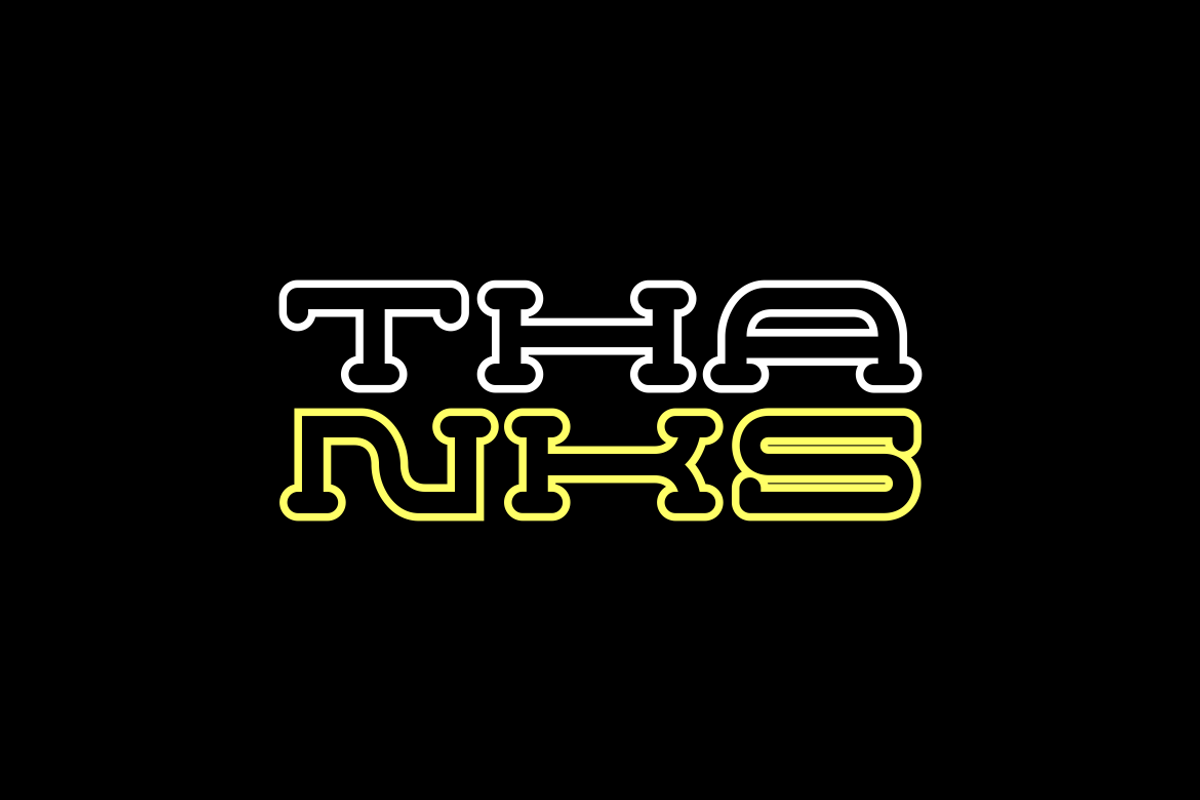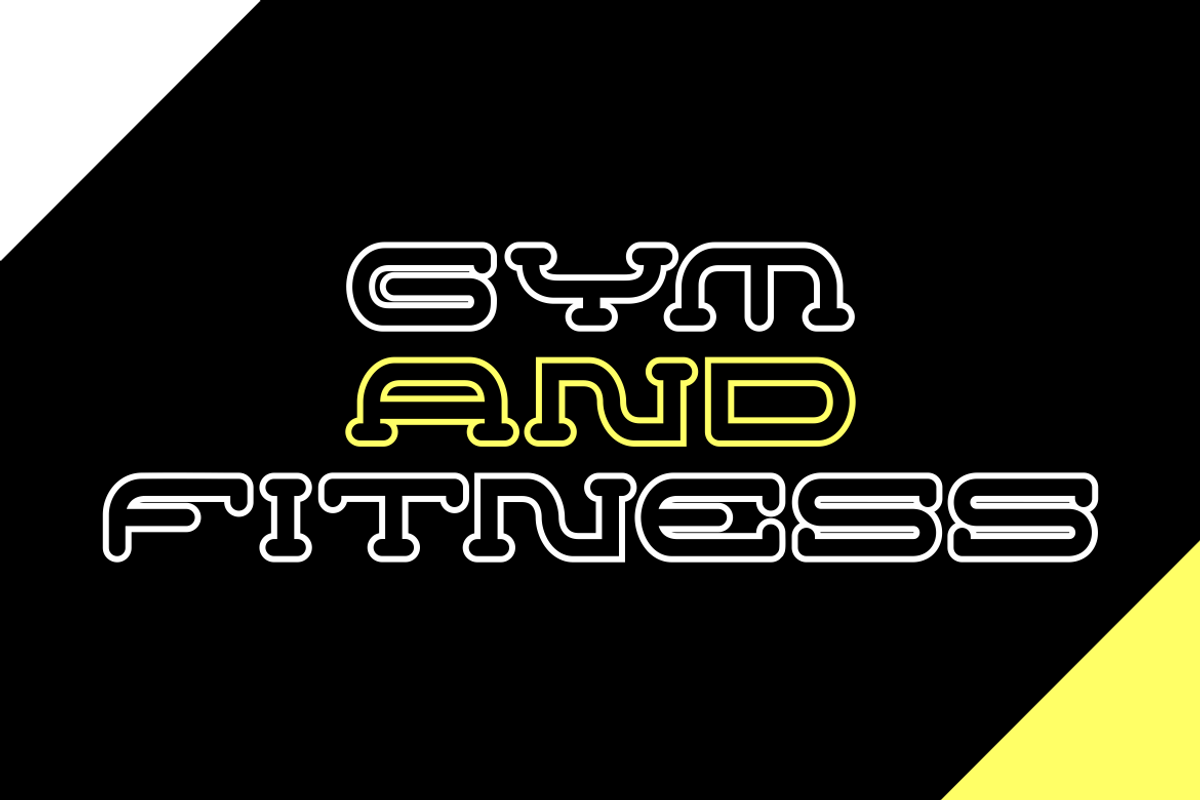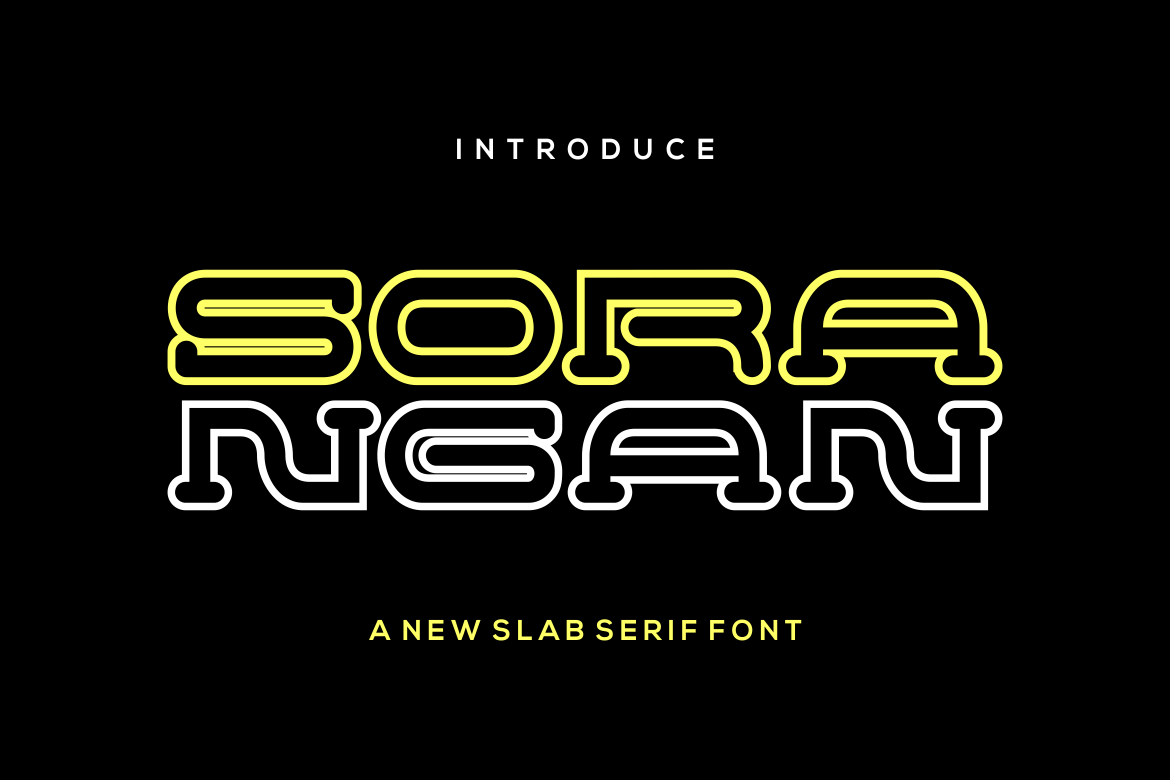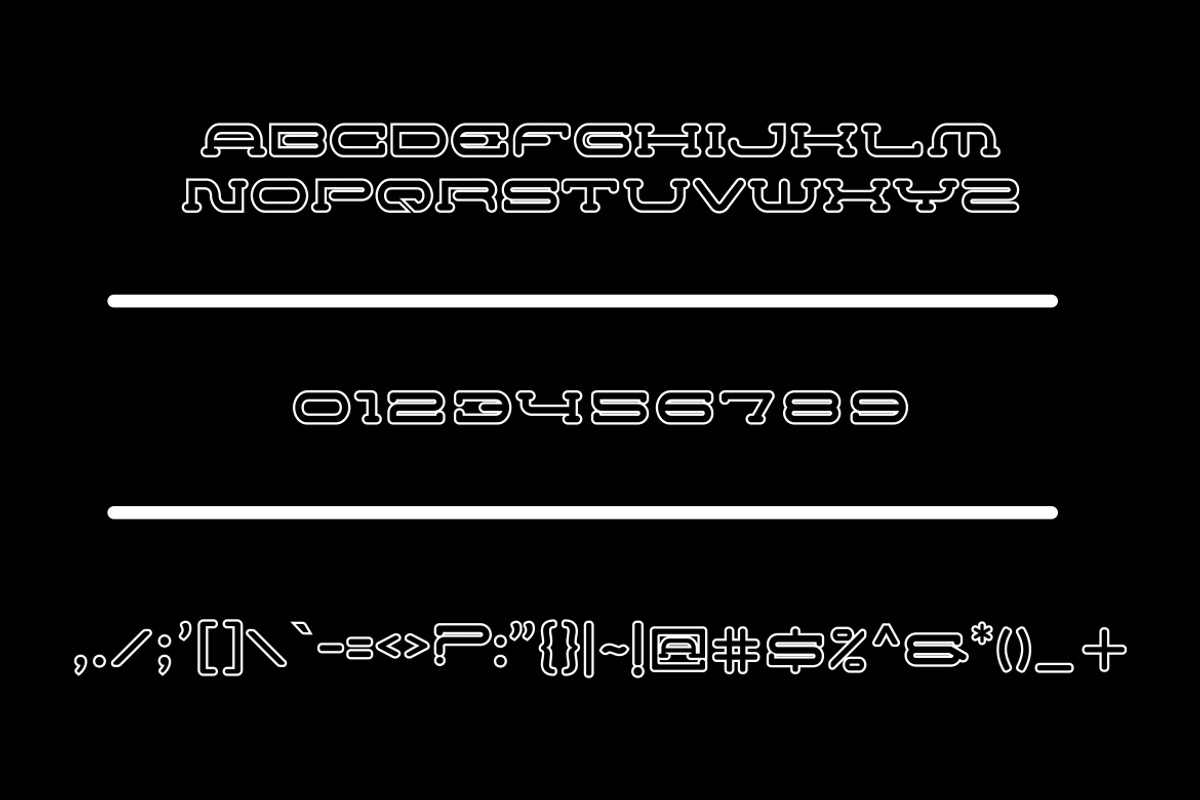
Sorangan Font
Introducing our new product Sorangan Font - Modern Font
Sorangan Font- Modern Font is a bold and authentic display font. The font is suitable for any branding project like logo, t-shirt printing, esport, and many more. outstanding in a wide range of contexts.